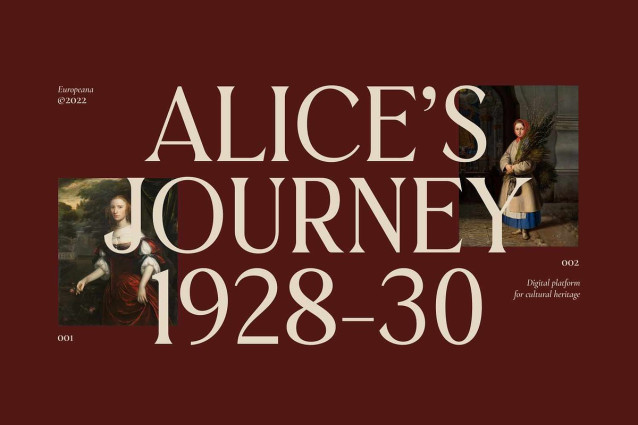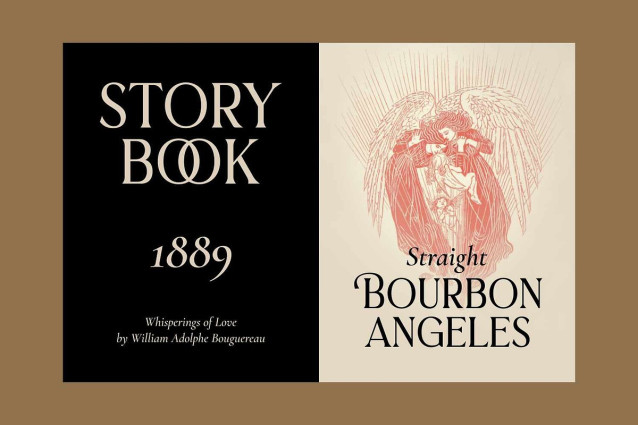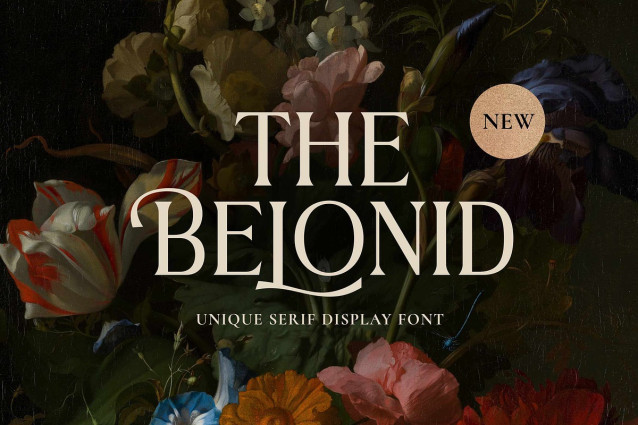
The Belonid Font
The Belonid Font, a classy serif display font that blends timeless classicism with a touch of modern sophistication. The Belonid is designed with high contrast letterforms and graceful curves that command attention and exude a sense of luxury.
Perfect for luxury branding, editorial design, magazine layouts, book covers, wedding invitations, and high end packaging.